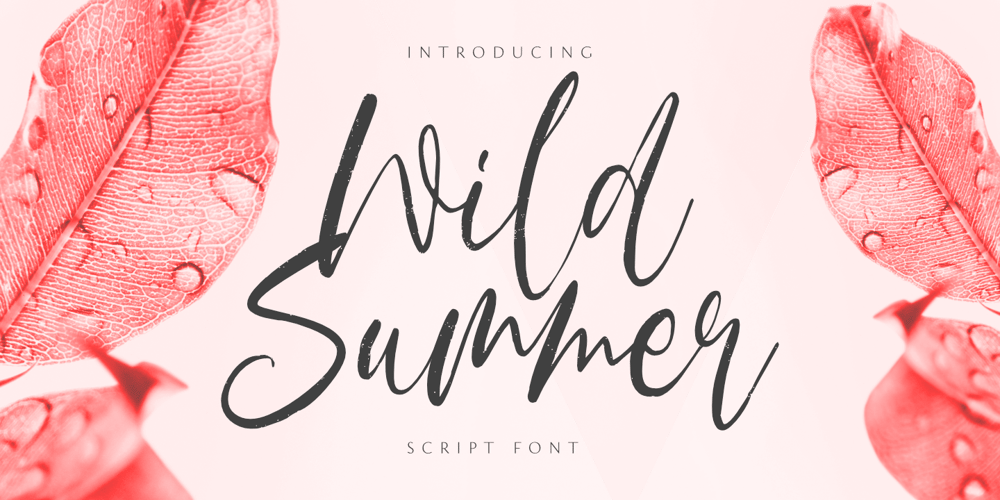
Wild Summer
Wild Summer font
Wild Summer Font Family was designed by Aldy Sidik and published by Epiclinez. Wild Summer contains 1 styles and family package options. Wild Summer is a casual dry brush font that is suited for retro-style logos and posters.So what’s included: Basic Latin A-Z & a-z. Numbers, symbols, punctuations, and ligatures. Multilingual Support. Accented Characters : ÀÁÂÃÄÅÆÇÈÉÊËÌÍÎÏÑÒÓÔÕÖØŒŠÙÚÛÜŸÝŽàáâãäåæçèéêëìíîïñòóôõöøœšùúûüýÿžß Thank You.